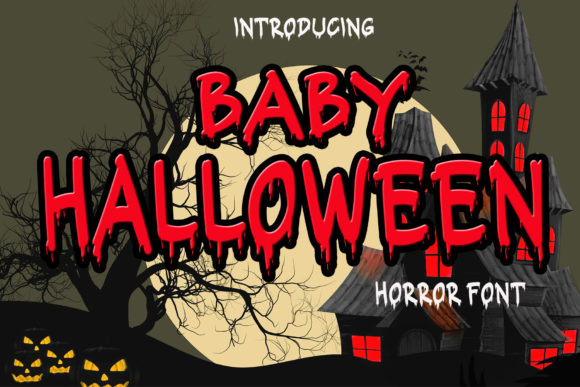
Are you ready to take your Halloween designs and October parties to the next level? Look no further than Baby Halloween Font, a cool and creepy display font that will instantly make your creations stand out. Created by Projectype, this font is specifically designed to add drama and a spooky vibe to any design or party invitation.
With its unique and eye-catching style, Baby Halloween Font is the perfect choice for those who want to make a bold statement. Whether you're designing flyers, posters, or social media graphics for a Halloween event, this font will definitely capture attention and leave a lasting impression on your audience.
One of the key reasons to download Baby Halloween Font is its versatility. It's not just limited to Halloween designs; it can be used for any project that requires a touch of darkness and mystery. From gothic-themed parties to horror movie promotions, this font will add that extra element of intrigue and excitement.
But what sets Baby Halloween Font apart from other fonts in the market? It's the perfect combination of creativity and spookiness. The carefully crafted letters, with their creepy and playful shapes, evoke a sense of excitement and anticipation. Your audience won't be able to resist the allure of this font, and it will surely make your designs and invitations unforgettable.
Don't miss out on the opportunity to elevate your Halloween designs and parties with Baby Halloween Font. Let your imagination run wild as you experiment with different layouts, colors, and effects. This font will be your secret weapon to creating captivating and memorable visuals that will leave your audience in awe.
In summary, Baby Halloween Font is the ultimate choice for anyone looking to add a touch of drama and spookiness to their designs or party invitations. With its unique style, versatility, and ease of use, this font will surely make your creations stand out from the crowd. Download Baby Halloween Font now and let the magic of Halloween come alive in your designs!